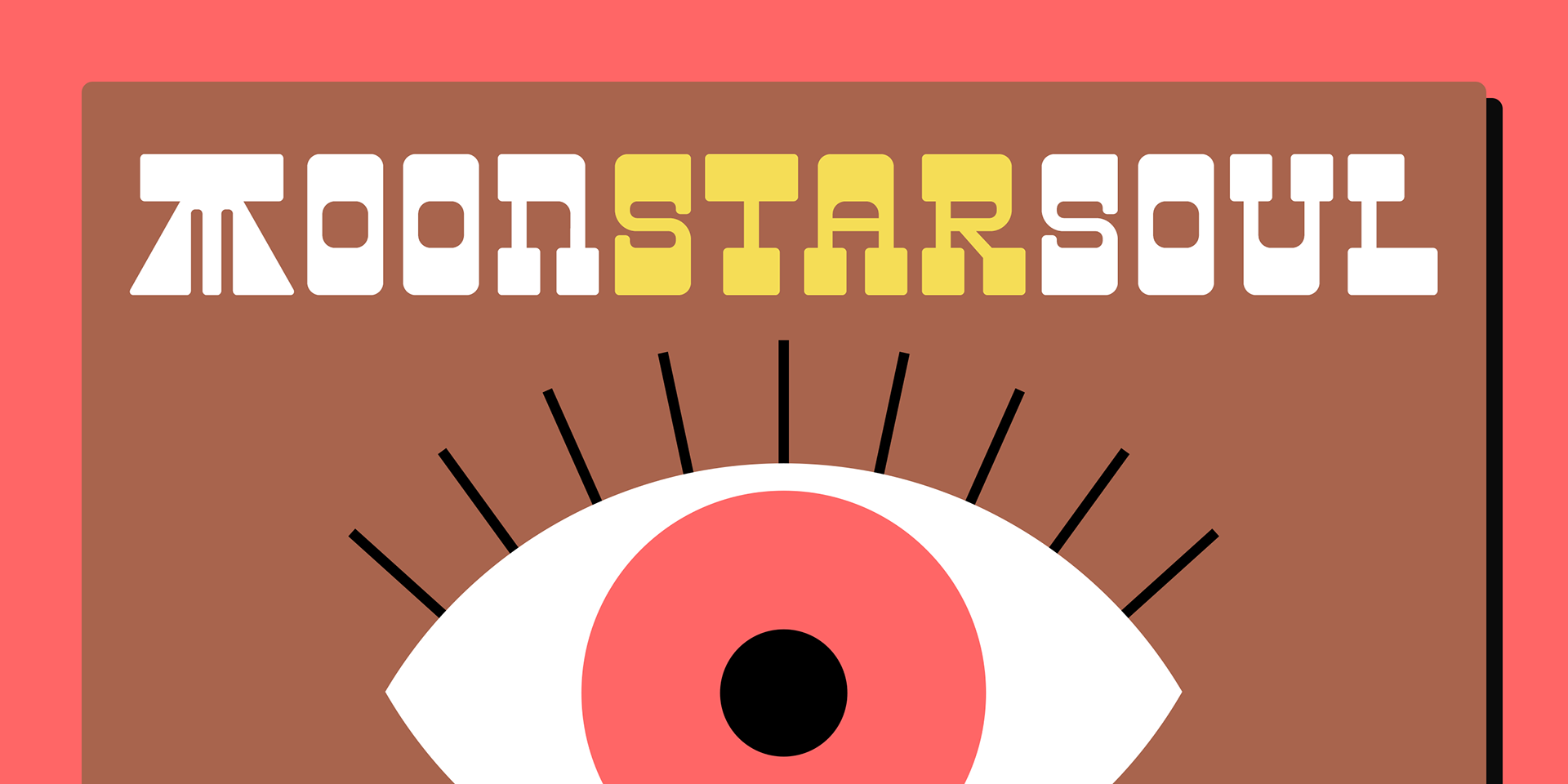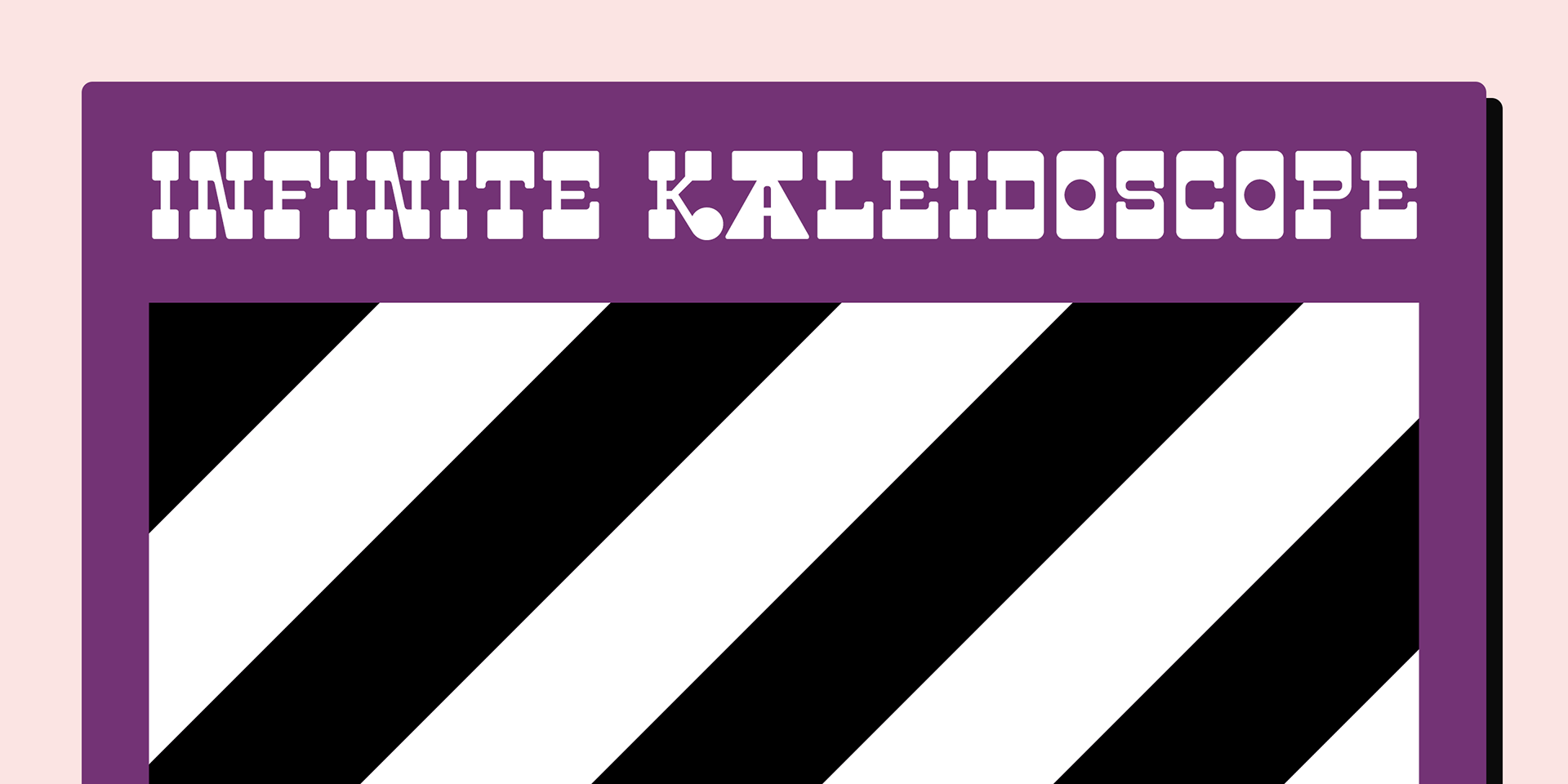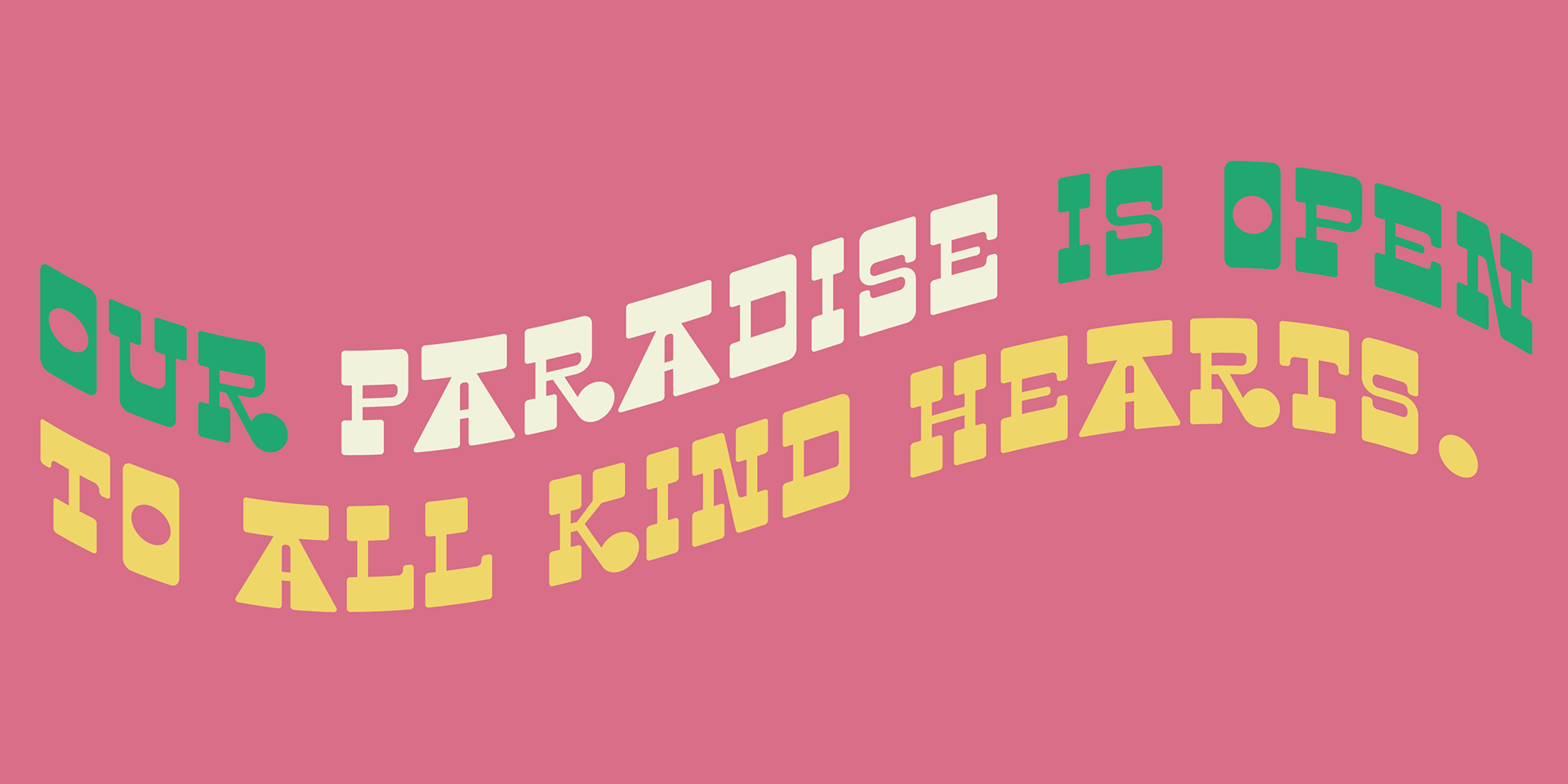
Moon Star Soul
Inspired by retro vinyl records from the mid-20th century, this font blends elements of funk, hippie culture, and mid-century futurism.
A bold and nostalgic typeface that captures the spirit of a colorful era.